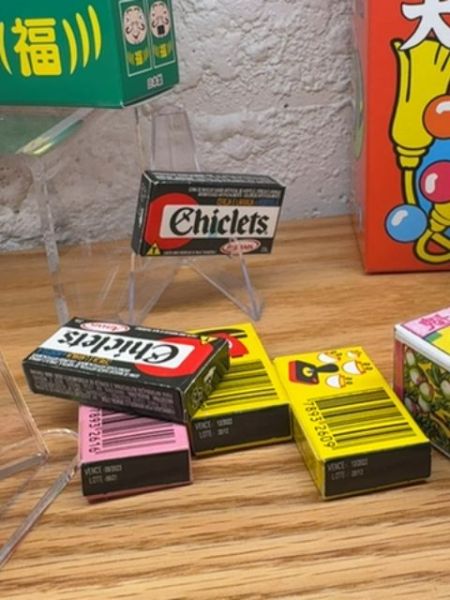
Chiclets
Chiclets is a brand of candy-coated chewing gum.
1906
USA
The typography on the Chiclets packaging features a bold, serif font for the brand name, emphasizing a vintage and classic feel. The use of a strong black outline enhances readability against the white background, while the additional elements are presented in a clear, sans-serif typeface to convey essential product information.
The packaging is vibrant and colorful, featuring a classic design with the brand name prominently displayed. Each package is compact and rectangular, making it easy to carry.
- Chiclets were first introduced in the early 1900s.
- The name 'Chiclets' is derived from 'chicle', a natural gum.
- The iconic chiclet shape and coating were innovative at the time of release.